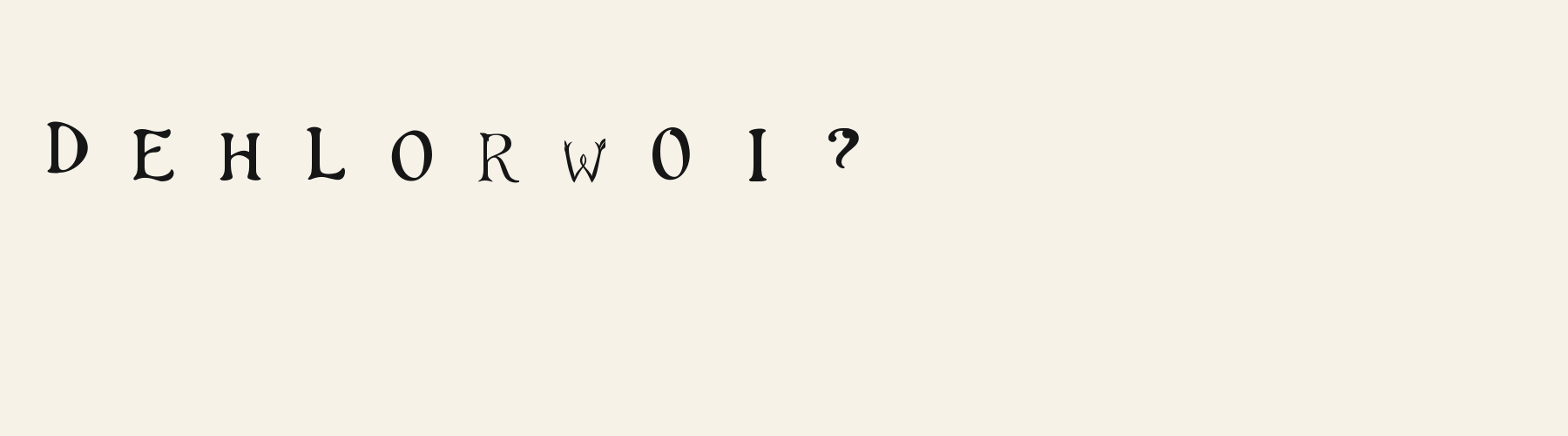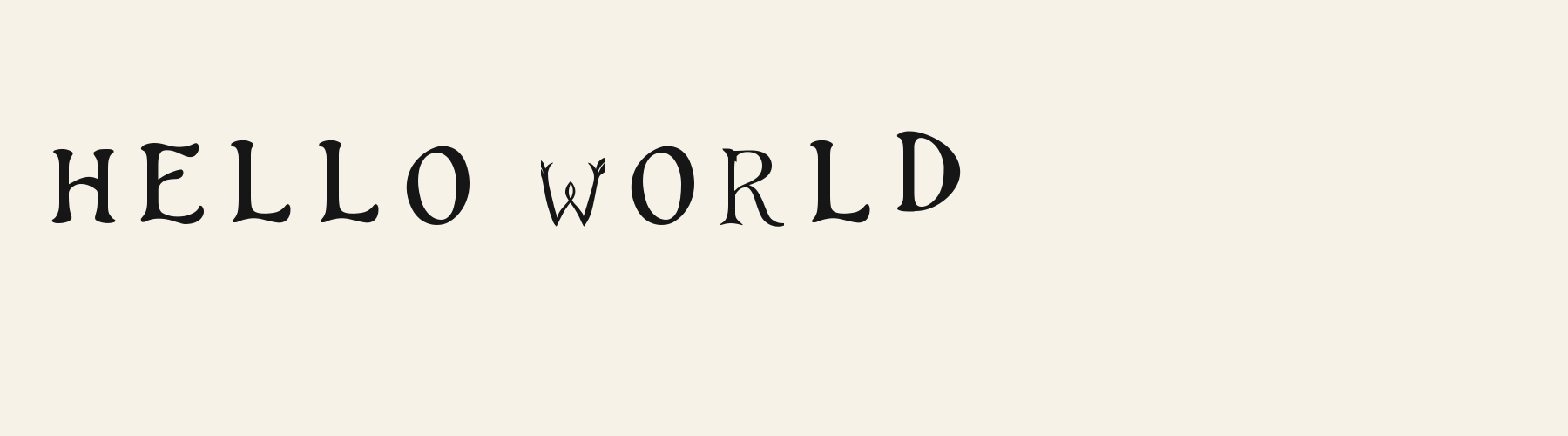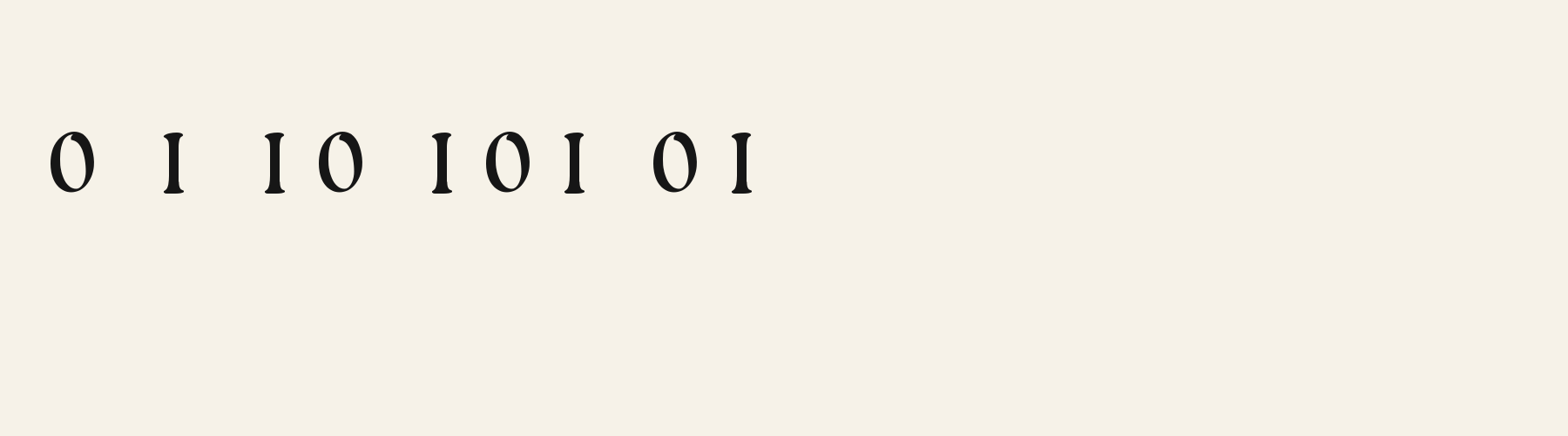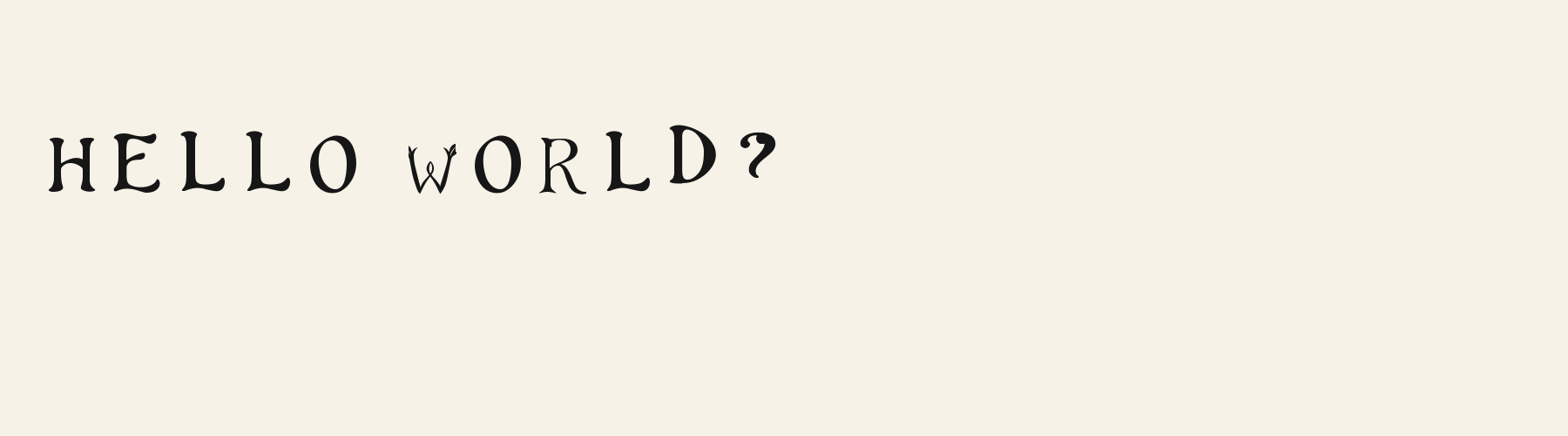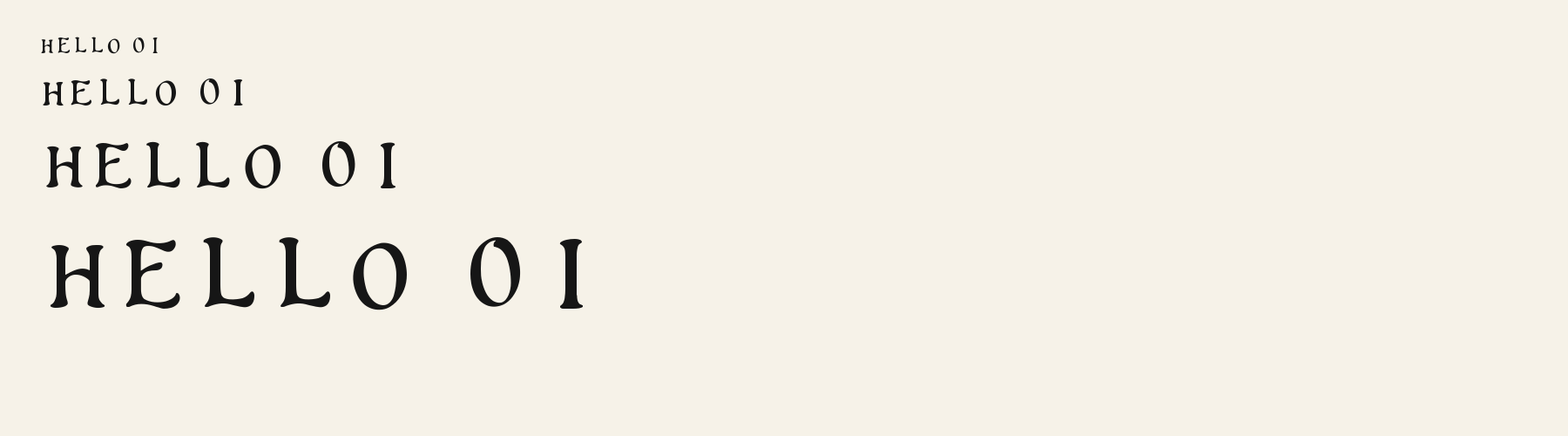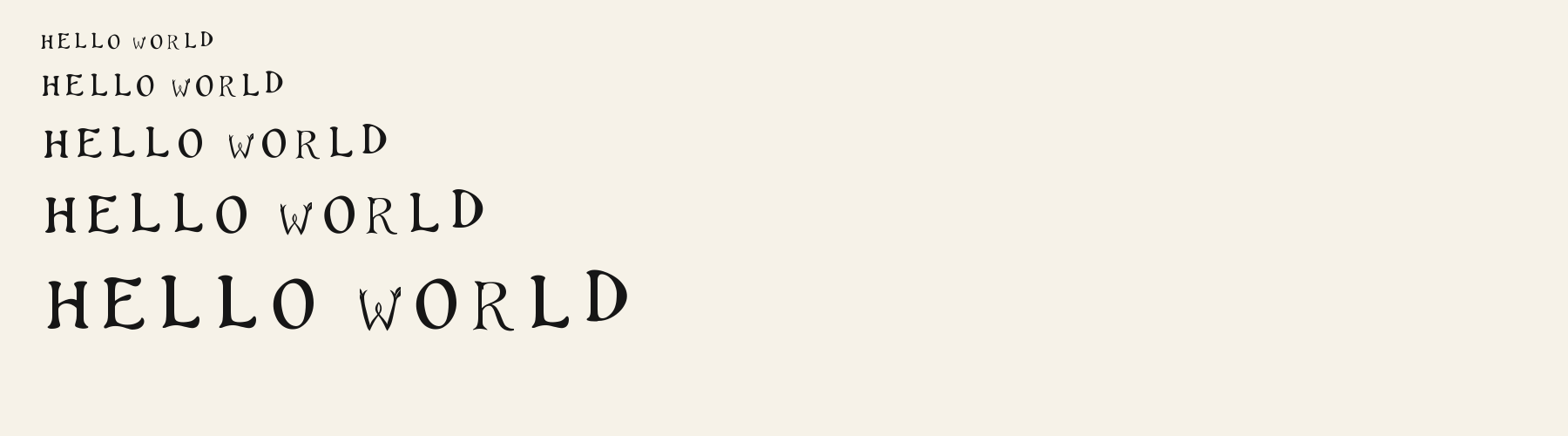
Decorative Art Nouveau Forked Leaf Display Font
Decorative Art Nouveau combines upright capitals with curved strokes and botanical details concentrated at the terminals.
Forked Leaf Display Letterforms
Decorative Art Nouveau combines upright capitals with curved strokes and botanical details concentrated at the terminals. The W is especially distinctive: fine branches finish in forked leaf tips, while its inner strokes form a small loop. The R pairs a generous upper bowl with a sweeping leg that curls into a pointed finish. On the E, the arms roll and lift instead of ending in flat cuts. Broad stems contrast with delicate connecting strokes, and the oval counters leave clear spaces within the lettering. These details give short phrases a graceful, slightly theatrical mood without filling every letter with ornament.
Inspect W's fine forks, R's curled leg and the gaps around repeated L forms in your actual wording. Compare tighter and wider spacing. These specimens show Latin capitals; preview lowercase separately, check accented Latin characters, and verify other scripts with an appropriate companion.
Try this face for a short heading, with a plain sans serif handling dates, descriptions and supporting labels. Its branching W and curling E already supply ornament, so a companion with simple terminals can keep secondary information visually distinct.
Decorative Art Nouveau: letterforms and layout
Compare the original spacing with a wider setting. The broad L feet and open oval O create a different rhythm from the fine, branching W; inspect whether added space keeps the word cohesive while giving those terminals room.
In this uppercase phrase, rounded bowls, curling feet and the fine, leaf-tipped W produce a flowing silhouette. The O has a clear oval counter, offering a quiet interval between the more elaborate letters.
Abbey Textura gives the same uppercase phrase heavier, angular strokes and more densely worked interiors. Its O includes an internal upright stroke, while its W forms a compact block with narrow openings. Choose it when that dense blackletter texture suits the composition.
Decorative Art Nouveau font in use
GARDEN EVENING
Card or invitation. Leaf-like tips and curling terminals give an invitation heading a botanical character while leaving the surrounding layout open. WILD ROSE
Product label. The branching W and sweeping R bring distinctive details to a short product name with generous oval counters. HELLO SPRING
Poster. Curved arms and broad, curling feet give a cultural poster title a flowing rhythm across a single line.
The scenes are illustrations drawn on this page with Decorative Art Nouveau itself, not client work.
About Decorative Art Nouveau
With an x-height of 79.9% of the cap height, its lowercase stands above the 74.4% median for decorative fonts, taller than 34 of the 36 other decorative fonts. Ascenders on b, d, h, k and l rise 21% above the capitals, and descenders on g, j, p, q and y drop 23.7% of the cap height below the baseline, deeper than 18 of the 36 other decorative fonts. Its letters are of average width for decorative fonts: an average lowercase letter, spacing included, is 79.4% as wide as the capitals are tall (an average capital, 88.7%), within 4.3% of the median. The o is an upright oval, 0.87 times as wide as it is tall, and Z is the widest capital, at 1.06 times the width of H. The O stops 11.4% of the cap height short of H and dips 1.2% below the baseline.
The letters stand upright, leaning less than 2.5° either way. Ink covers 23.9% of each lowercase letter's box (its advance width by the cap height), lighter than 34 of the 36 other decorative fonts.
Its 95 characters include 52 Latin letters, plus 43 figures, punctuation marks and symbols; there are no accented Latin letters beyond A to Z. The word space measures 50.2% of the cap height, and the blank space either side of a lowercase letter takes up 12.9% of its width. The font carries no kerning, so spacing comes from each letter’s own side bearings. The figures have different widths, so columns of numbers set in Decorative Art Nouveau will not line up exactly.
- Structure
- Organic curved stems, restrained botanical terminals and open readable counters